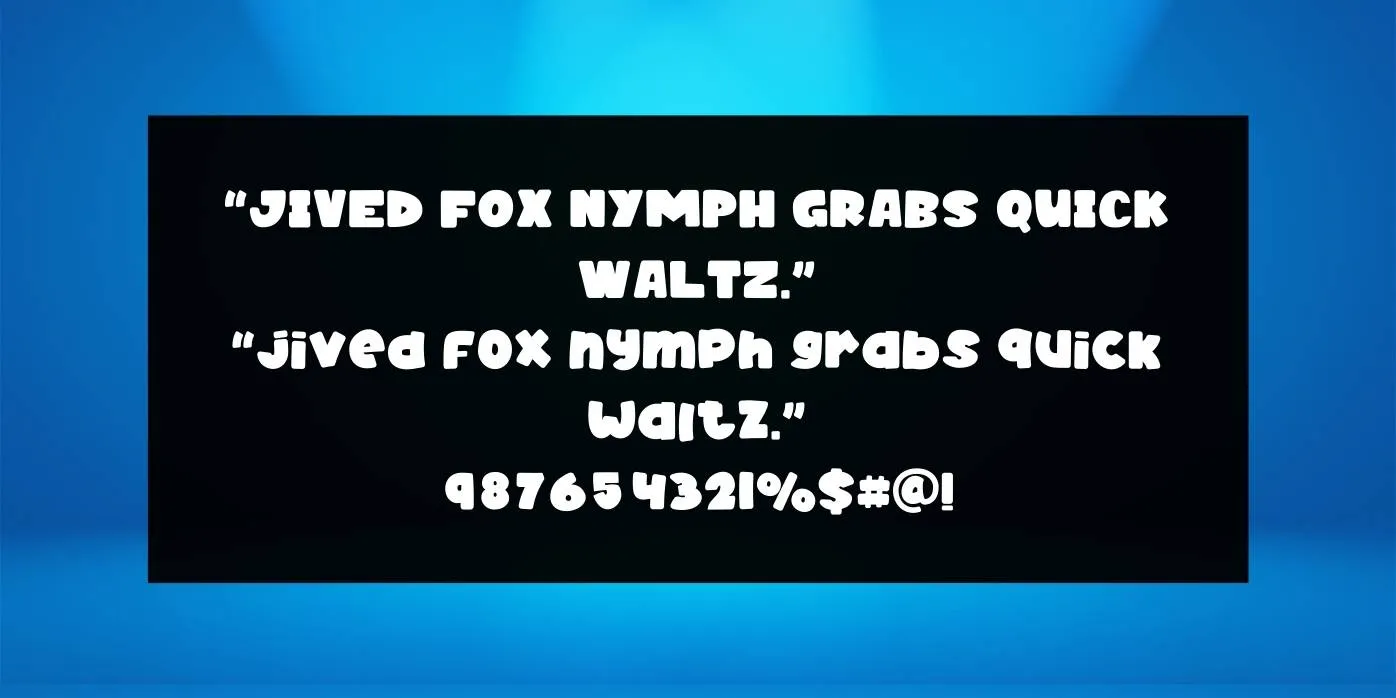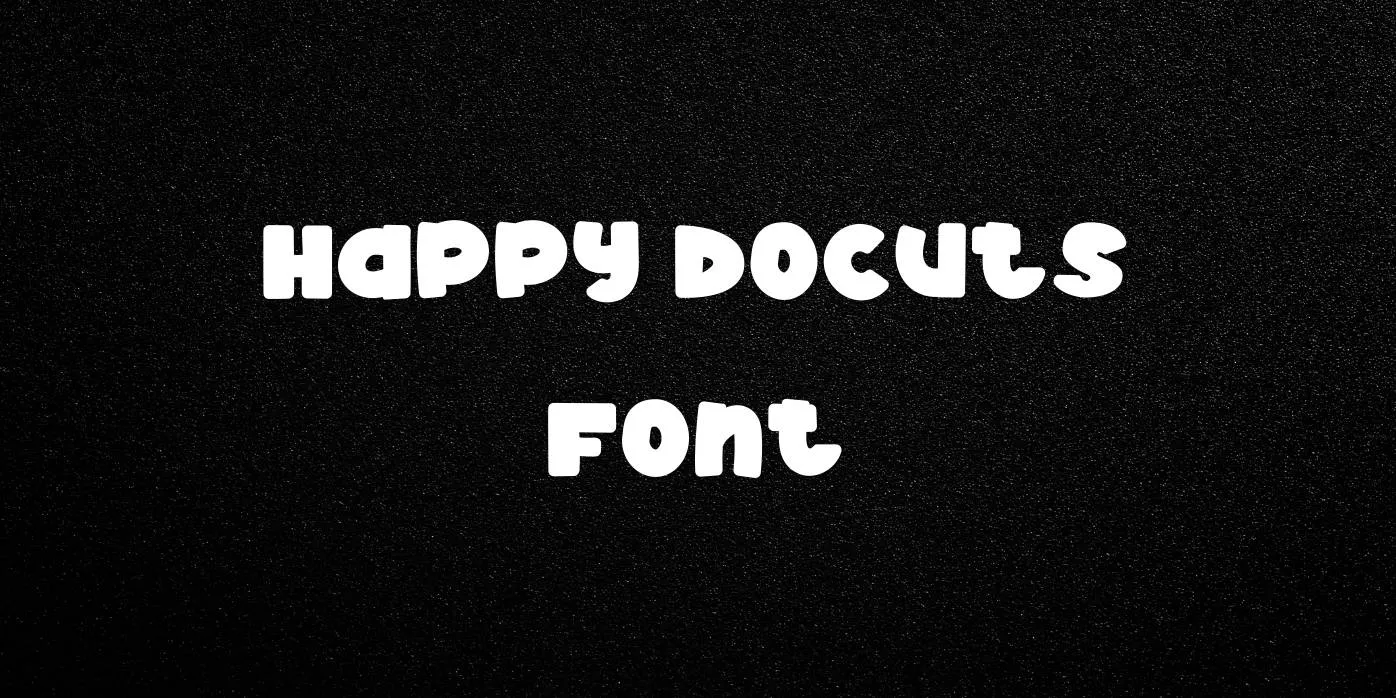
Happy Donuts Font
Happy Donuts Font is a fancy typeface that was designed by Colin Brignall and Roger Excoffon in 1963. The fonts were created for the London-based company Letraset. The Font family includes six weights: light, regular, bold, black, extra black, and ultra black. The fonts are available in two styles: regular and condensed.
The glyph has an oblique stress, with a slight variation between the styles. For more advanced uses, you need to use grobold font by making a combination with this family. The Font family was released in 1963 and became an instant hit with designers. The fonts were used extensively in advertising and packaging in the 1960s and 1970s.
This font is also commonly used in the CSS. The fonts are still popular today and are often used in retro-themed designs. The fonts are also popular among graphic designers and advertising agencies.